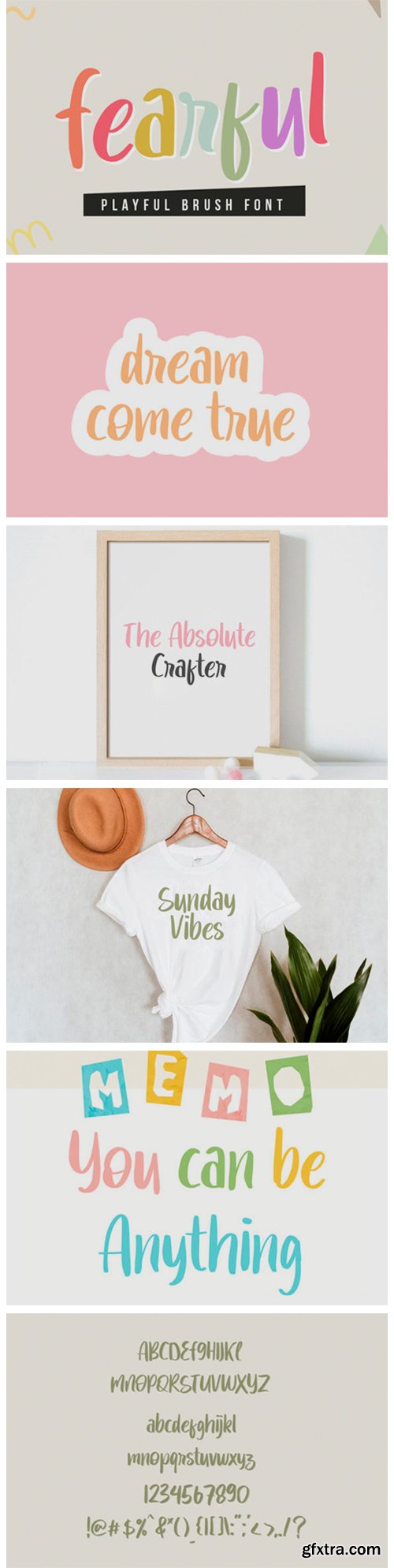
Fearful Font
Fearful is a delightful and charming display font that radiates fun. It works great on kid’s projects, as well as on any other design idea in need of a cartoonish vibe.